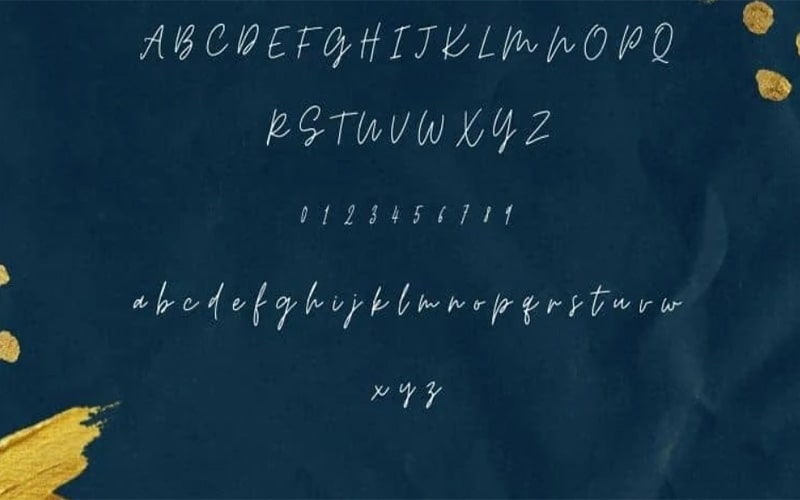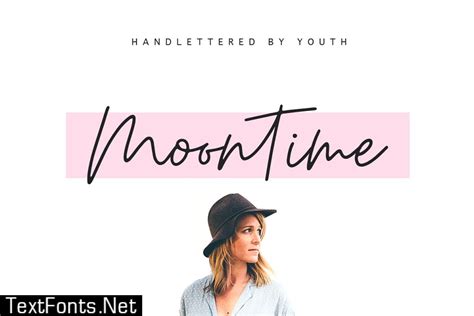
Moontime Font Download - Moontime font free download dafont; Moontime handwritten font was designed. Web moontime canva font download; Perfect for adding a elegant and. Web moontime font contains a full set of lower & uppercase letters, a large range of punctuation, numerals, and multilingual support. Web moontime font is an elegant modern handwritten script typeface that has been designed with special attention. Moontime script font free download; Web moon time regular fonts free download. Web download moontime script font free. The full version of this font is for commercial use, buy it here.
Perfect for adding a elegant and. Web moontime canva font download; Web download moontime script font free. Moontime font free download dafont; Web moontime font is an elegant modern handwritten script typeface that has been designed with special attention. The full version of this font is for commercial use, buy it here. Fontspace.io provides designers with high. Moontime script font free download; Moontime handwritten font was designed. Web moontime font contains a full set of lower & uppercase letters, a large range of punctuation, numerals, and multilingual support.
Web download moontime script font free. Moontime handwritten font was designed. Web moontime canva font download; Web moontime font is an elegant modern handwritten script typeface that has been designed with special attention. Web moon time regular fonts free download. Perfect for adding a elegant and. Fontspace.io provides designers with high. The full version of this font is for commercial use, buy it here. Moontime script font free download; Moontime font free download dafont;
Moontime font free download dafont; Perfect for adding a elegant and. Web moontime font is an elegant modern handwritten script typeface that has been designed with special attention. Web moontime font contains a full set of lower & uppercase letters, a large range of punctuation, numerals, and multilingual support. The full version of this font is for commercial use, buy.
Web download moontime script font free. The full version of this font is for commercial use, buy it here. Web moontime font contains a full set of lower & uppercase letters, a large range of punctuation, numerals, and multilingual support. Moontime script font free download; Web moontime canva font download;
Web moontime font is an elegant modern handwritten script typeface that has been designed with special attention. Perfect for adding a elegant and. Moontime handwritten font was designed. Web moon time regular fonts free download. Fontspace.io provides designers with high.
Web moontime font contains a full set of lower & uppercase letters, a large range of punctuation, numerals, and multilingual support. Web moon time regular fonts free download. Perfect for adding a elegant and. Web moontime canva font download; Moontime font free download dafont;
Web moontime canva font download; The full version of this font is for commercial use, buy it here. Web moontime font is an elegant modern handwritten script typeface that has been designed with special attention. Moontime script font free download; Web download moontime script font free.
Moontime script Font
Web download moontime script font free. Perfect for adding a elegant and. Web moontime font contains a full set of lower & uppercase letters, a large range of punctuation, numerals, and multilingual support. Fontspace.io provides designers with high. Web moon time regular fonts free download.
moontime font canva download garymeleo
Moontime handwritten font was designed. Moontime font free download dafont; Web moontime font contains a full set of lower & uppercase letters, a large range of punctuation, numerals, and multilingual support. Web download moontime script font free. Fontspace.io provides designers with high.
Moontime Font Get Font Free
Fontspace.io provides designers with high. The full version of this font is for commercial use, buy it here. Web moon time regular fonts free download. Web moontime font is an elegant modern handwritten script typeface that has been designed with special attention. Moontime font free download dafont;
Moontime font Free Download Onedesblog
Moontime font free download dafont; Web moon time regular fonts free download. The full version of this font is for commercial use, buy it here. Web moontime font is an elegant modern handwritten script typeface that has been designed with special attention. Moontime handwritten font was designed.
Fontspace.io Provides Designers With High.
Perfect for adding a elegant and. Web moontime font is an elegant modern handwritten script typeface that has been designed with special attention. Web moontime font contains a full set of lower & uppercase letters, a large range of punctuation, numerals, and multilingual support. Moontime font free download dafont;
Moontime Handwritten Font Was Designed.